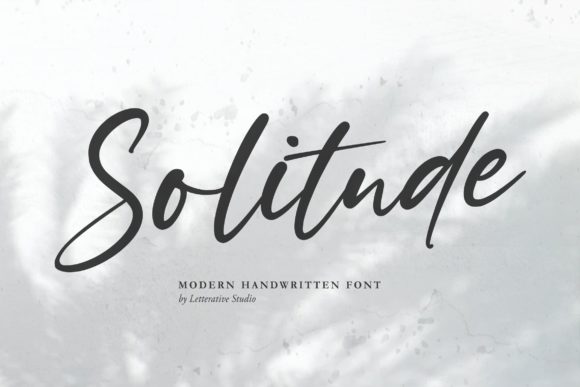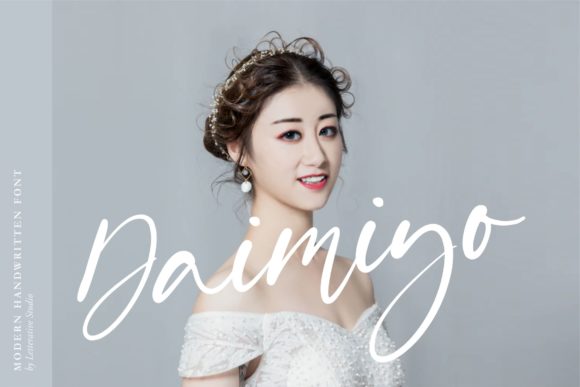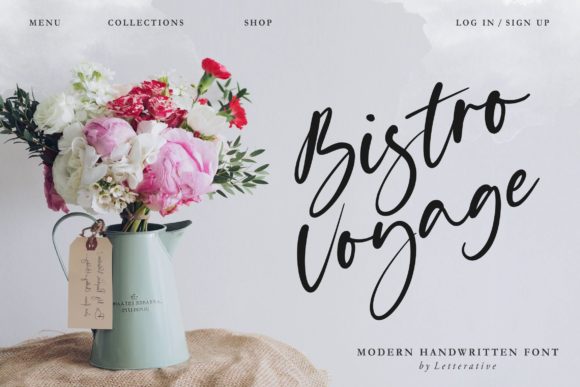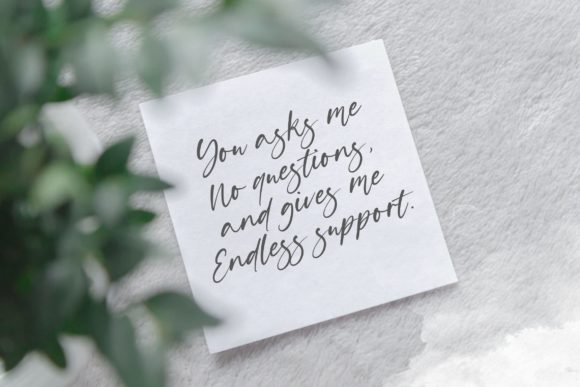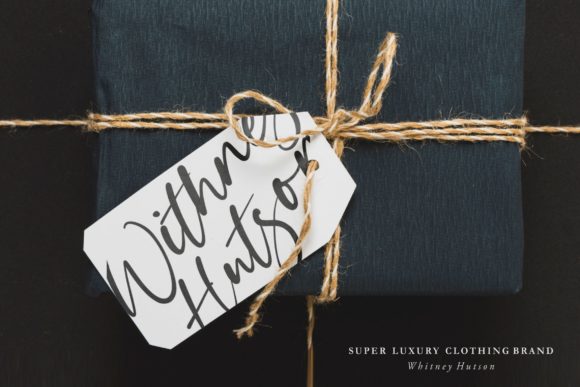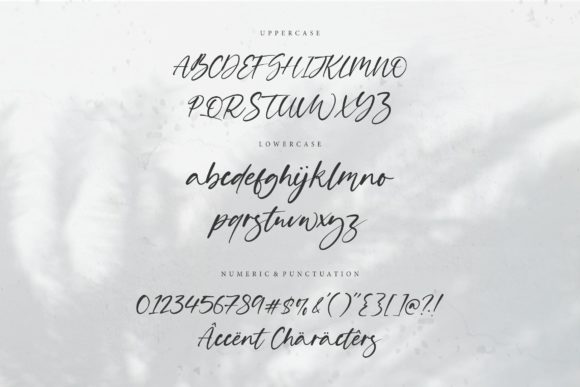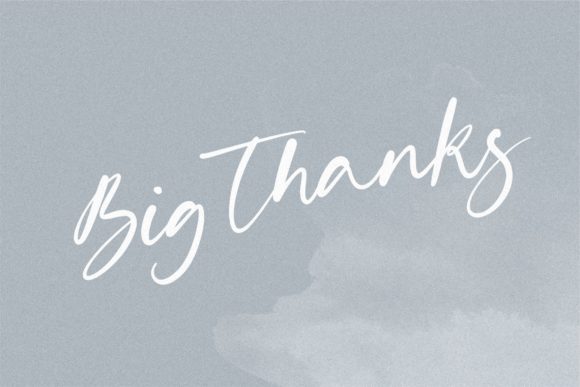
Solitude Font
About Solitude Font
Solitude is a sweet script font with a relaxed theme, featuring a lovely style. No matter the topic, this font will be an incredibly asset to your fonts’ library, as it has the potential to elevate any creation.